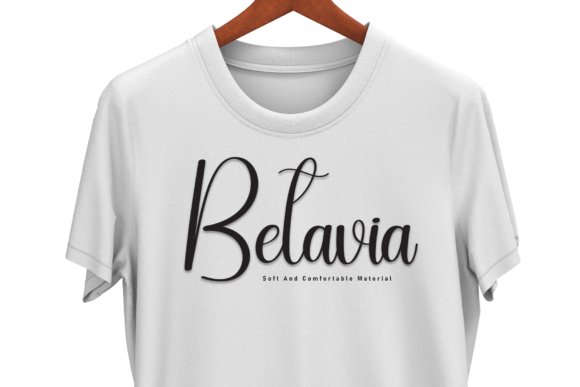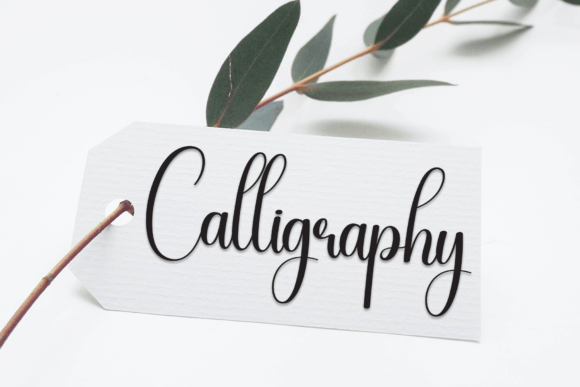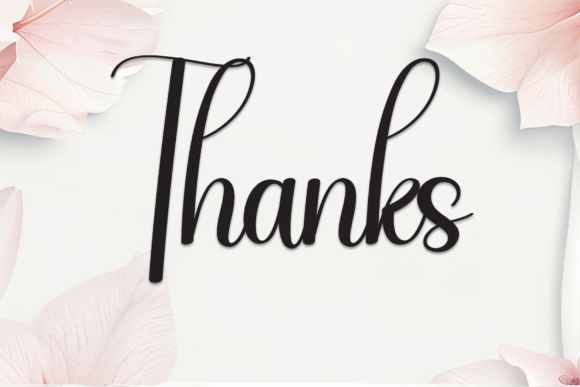
Magnolia Font
Magnolia is a fancy, elegant font that looks like beautiful handwriting. It’s perfect for adding a touch of luxury and style to your designs.